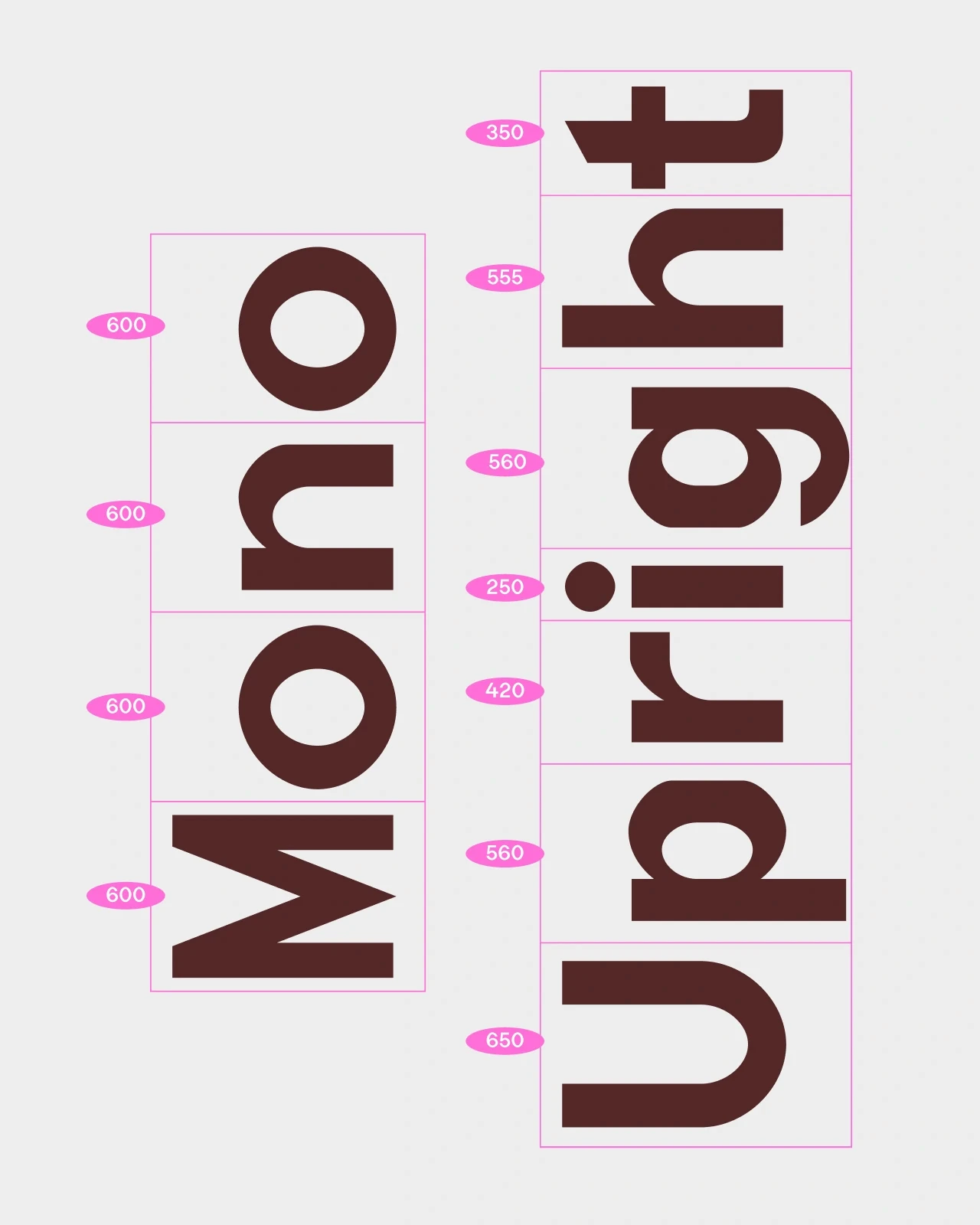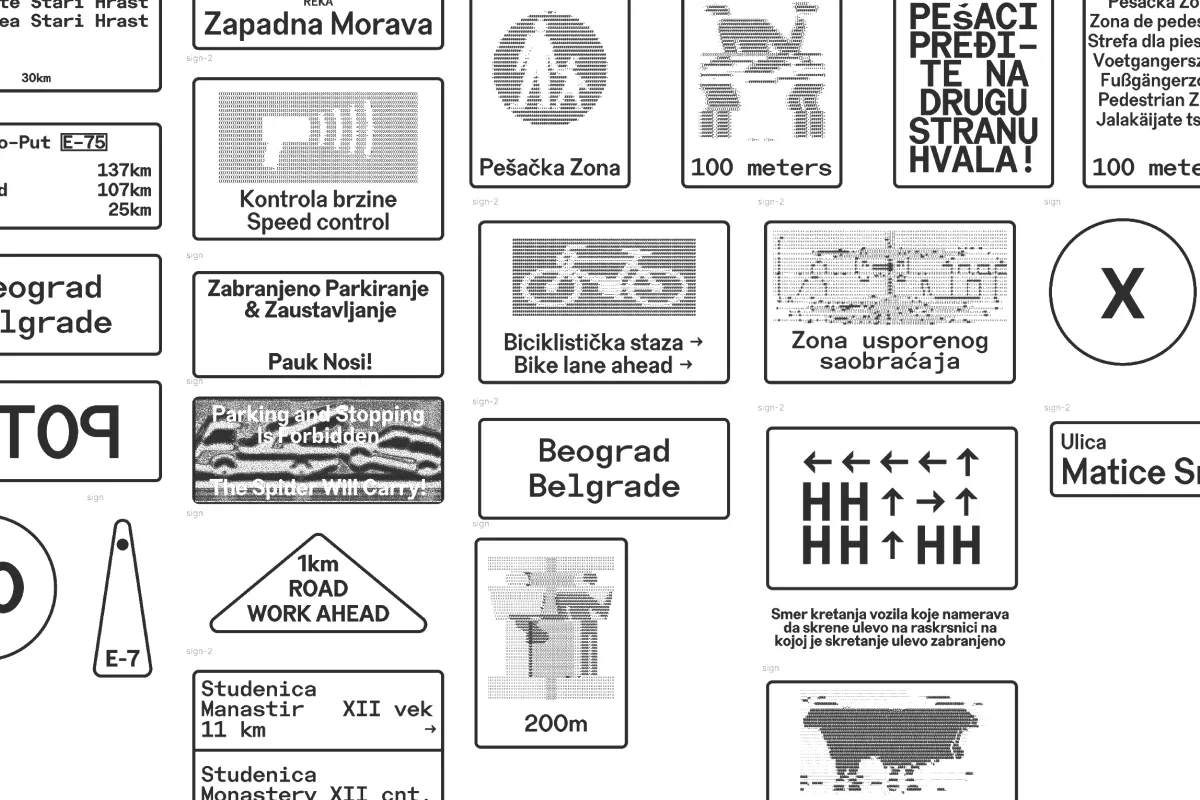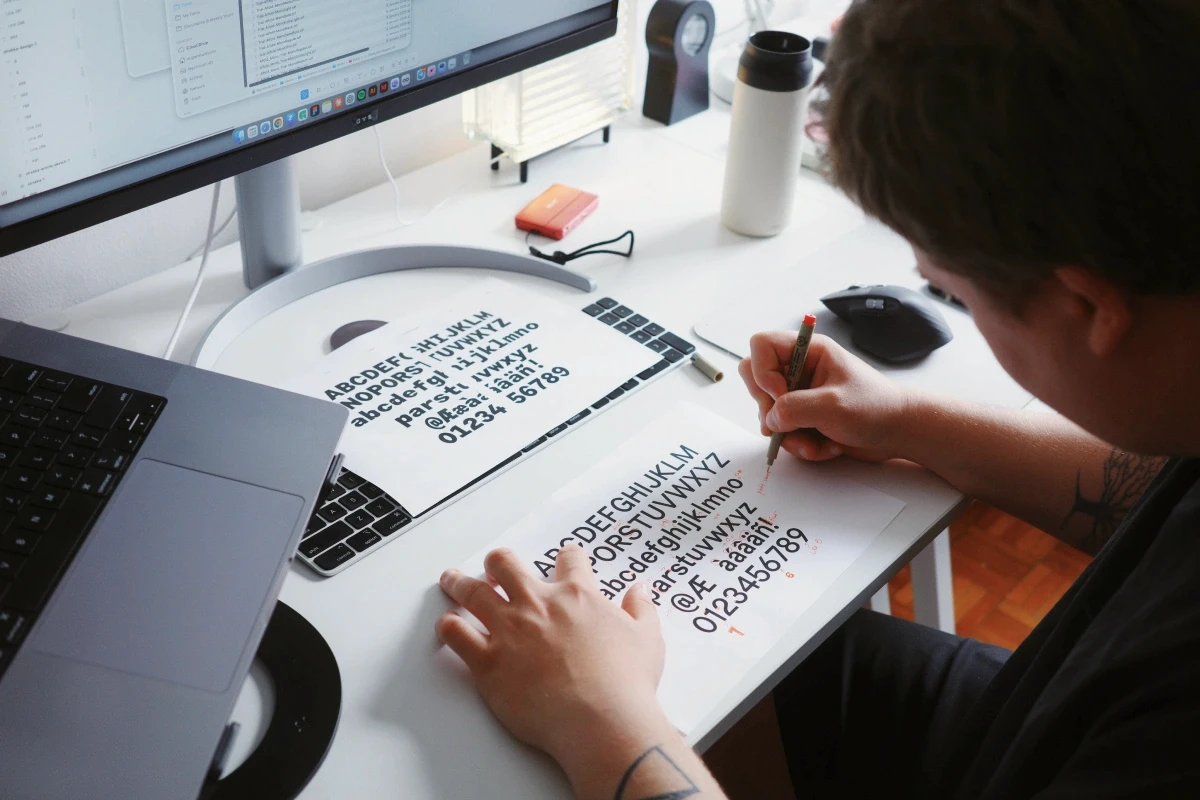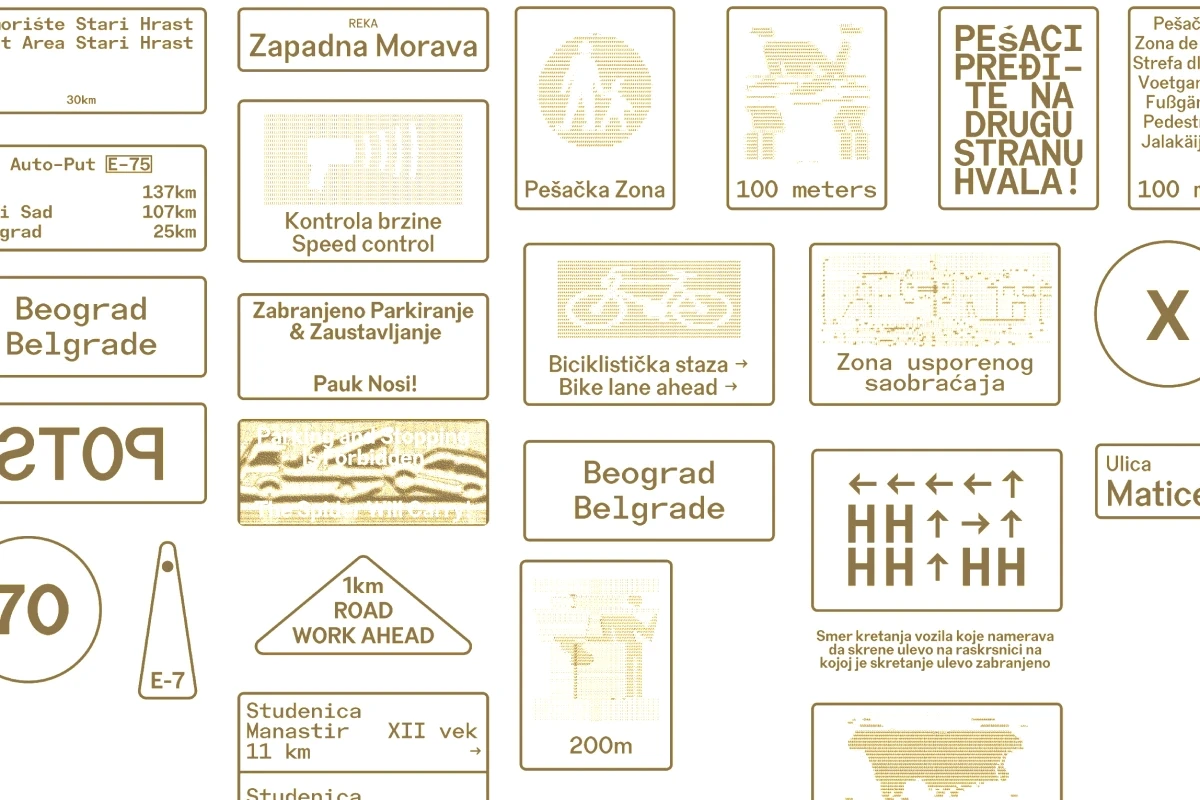
Strekka
Strekka is an expressive sans serif family by Groteskly Yours Studio, shaped by the visual language of road signage and the irregular ways typography adapts to urban environments. Rather than treating these changes as flaws to be corrected, Strekka draws from weathering, repairs, additions, and small distortions that accumulate over time. The result is a typeface built on a solid sans serif structure that is constantly challenged by uneven details, altered proportions, and unexpected gestures.
Strekka does not treat its letterforms as fixed or perfectly resolved. The characters were built through observation of how public lettering is stretched, repainted, patched, compressed, or made to fit changing urban conditions. This gives the family a distinct utilitarian character, balancing roughness and rhythm without turning every feature into a flashy effect. Upright and monospaced styles offer different interpretations of the same system, spanning the spectrum from the more practical to the outright deliberate and experimental.
Strekka was designed for branding, posters, editorial work, digital projects, and display typography. As a package, Strekka brings a utilitarian, deliberate, and constructed quality to contemporary graphic design. Its varied forms make it suitable for designers looking for a sans serif that feels less neutral and more responsive to its environment and time. Strekka doesn't aim to be an invisible font, but instead it embraces its structure, insecurities, and ideas.